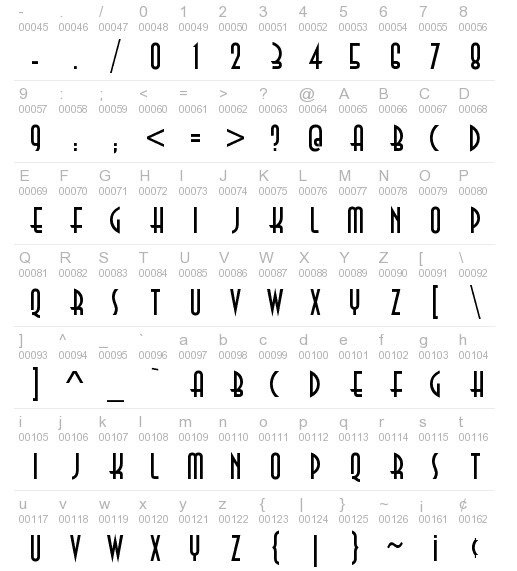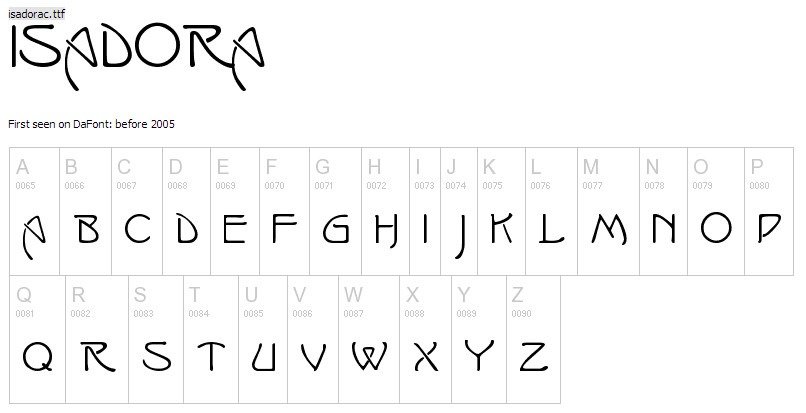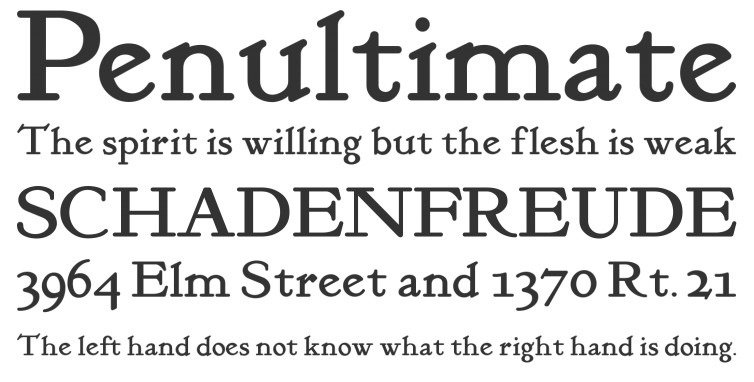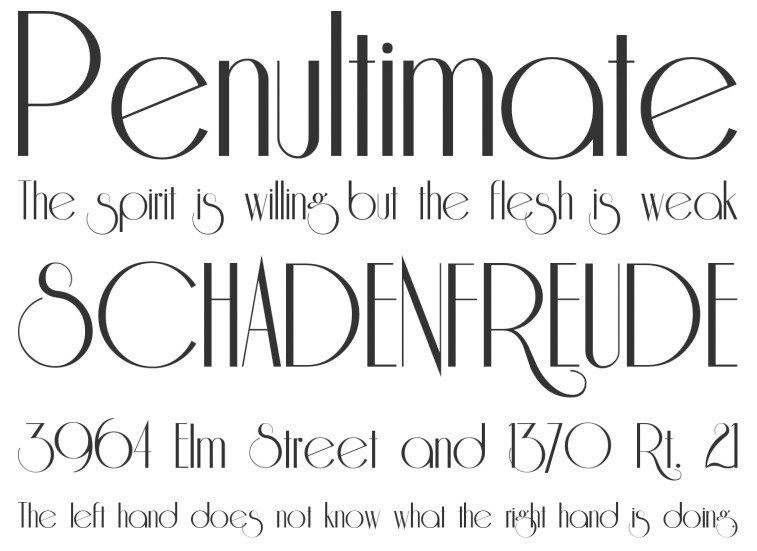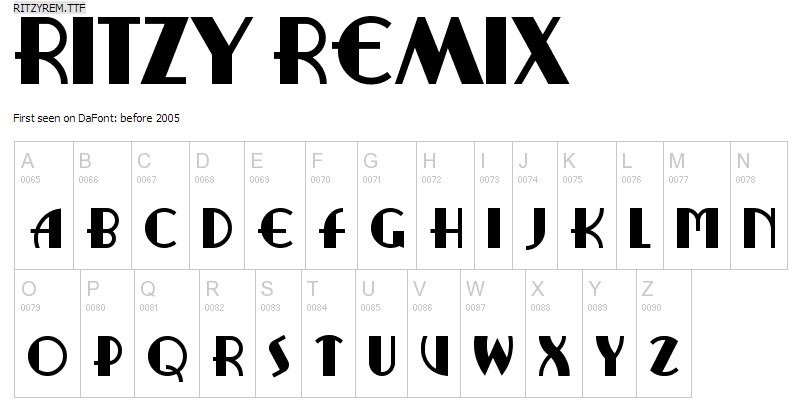
Riesling – MORE INFO
Riesling is a classic vintage font used by several websites with retro-themed website designs. It comprises narrow upper and lowercase letters and characters, combining basic and classic typography.
Kelmscott Roman – MORE INFO
This 90s inspired typeface features classic look of letters, number and special characters that can also be utilized as a font in formal contents in a period-inspired websites. These are available for downloads.
Anastacia – MORE INFO
Anastacia is a classic typography composed of various forms of uppercase letters, numbers, and a handful of special characters. This type of retro font is commonly used in creating typography logos.
Ritzy Remix – MORE INFO
Ritzy Remix is a vintage typeface consists of bold letters, numbers and other special characters that are perfect for retro movie posters and period-themed websites. This will surely add classic element to each site.
Star Avenue – MORE INFO
This popular classic typography features Arabic numeral, upper and lowercase letters, and grammatical marks. It is inspired from classic sci-fi movies and television series like Star Wars and Star Trek.
Isadora – MORE INFO
Isadora is a tribal-inspired vintage typography that features uppercase letters, numerals and special characters. It is like an Indiana Jones-themed typeface that suits websites with wilderness theme.